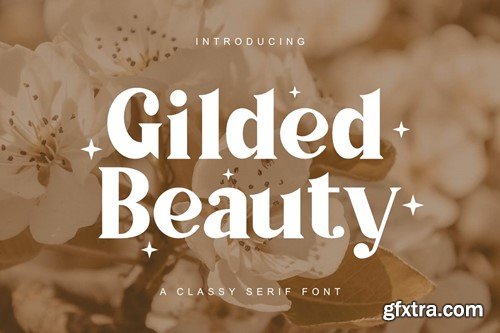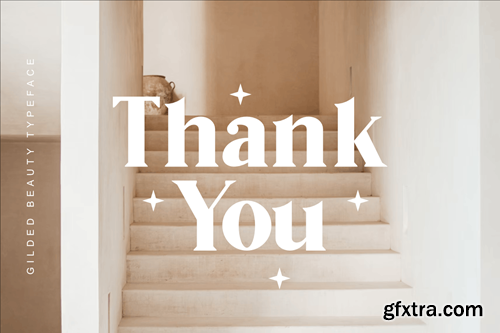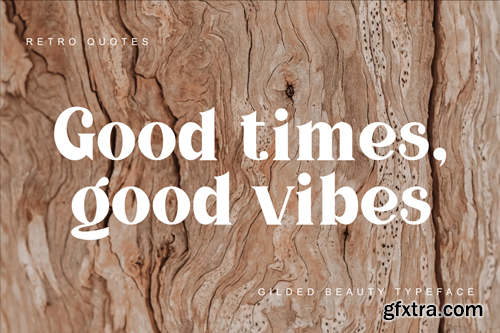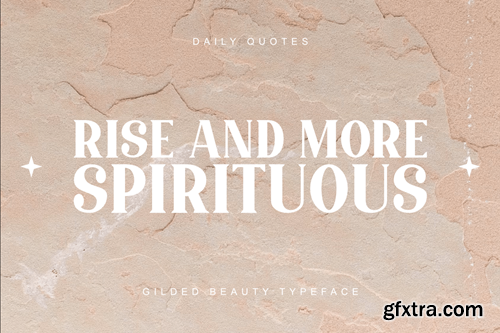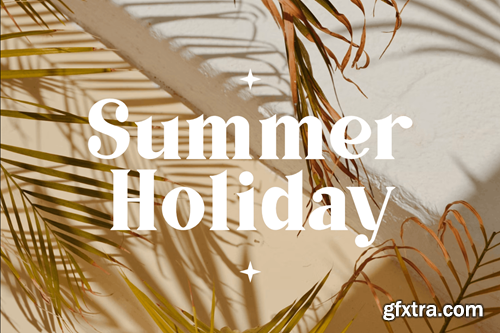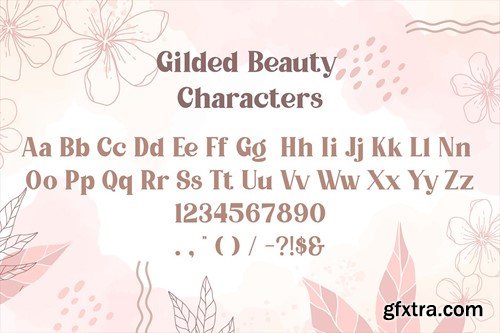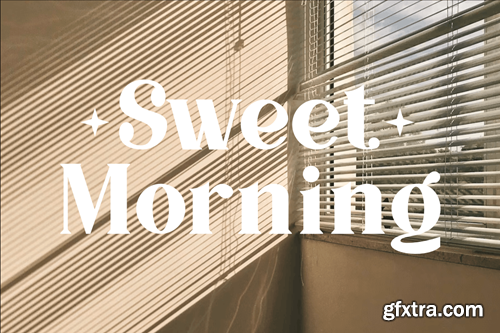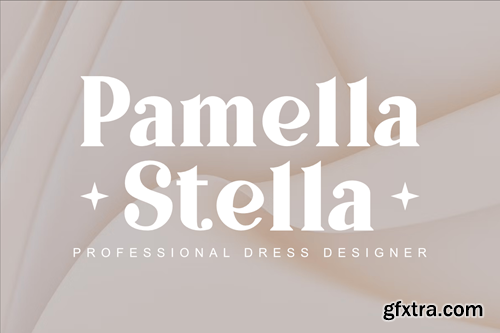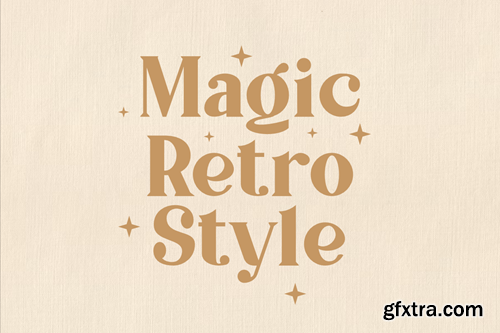
Gilded Beauty - A Classy Serif Font MPRH5C2
Gilded Beauty - A Classy Serif Font
The Gilded Beauty font is a classy serif font that is perfect for a variety of uses. This font is available in TTF and OTF formats, so it can be used in a variety of graphic design and social media applications.